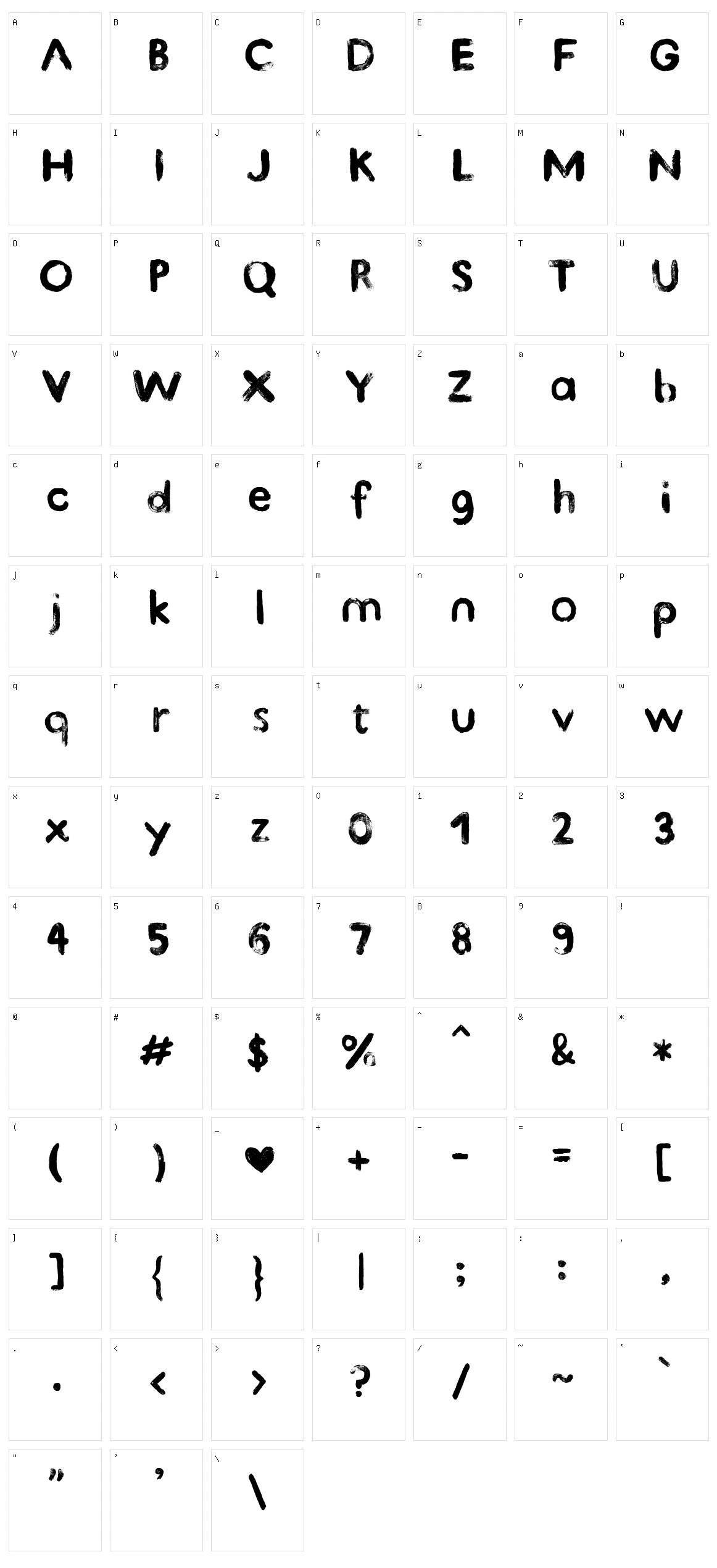
The free font Kind Type is carefully designed by Letters & Numbers, showcasing a thoughtful balance of creativity and usability and falls under the Eroded font style. When you download the ZIP file, it contains only 756.75 KB of font files, making it lightweight and quick to download. Please review the license details below to understand permitted usage and distribution rights. If license information is not available, we recommend using this font for personal projects only or contacting the author directly for commercial usage permissions.